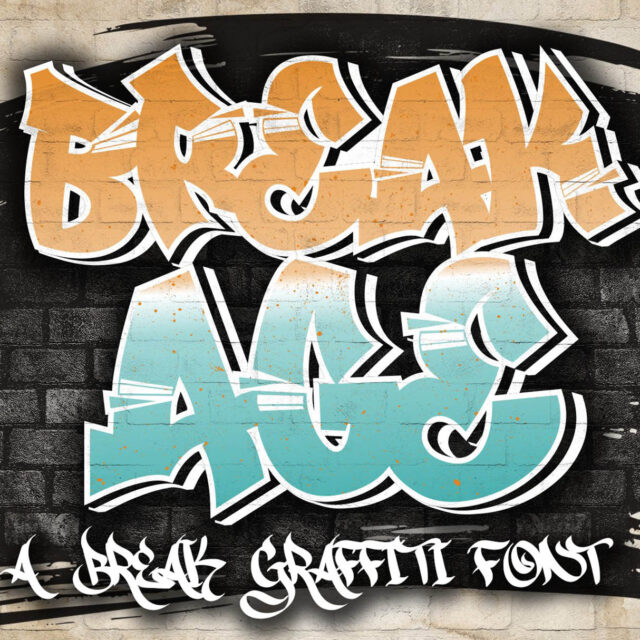
About Break Age
Break Age is a Awesome Decorative display font with a graffiti style and break characters with bandage to make your design look awesome! It will elevate a wide range of design projects to the highest levels, be it branding, headings, wedding designs, invitations, signatures, logotype, wall art illustration, apparel, labels, and more!
- Basic Latin A-Z and a-z
- Numbers
- Symbols
- PUA Encode
- Multilanguage Support